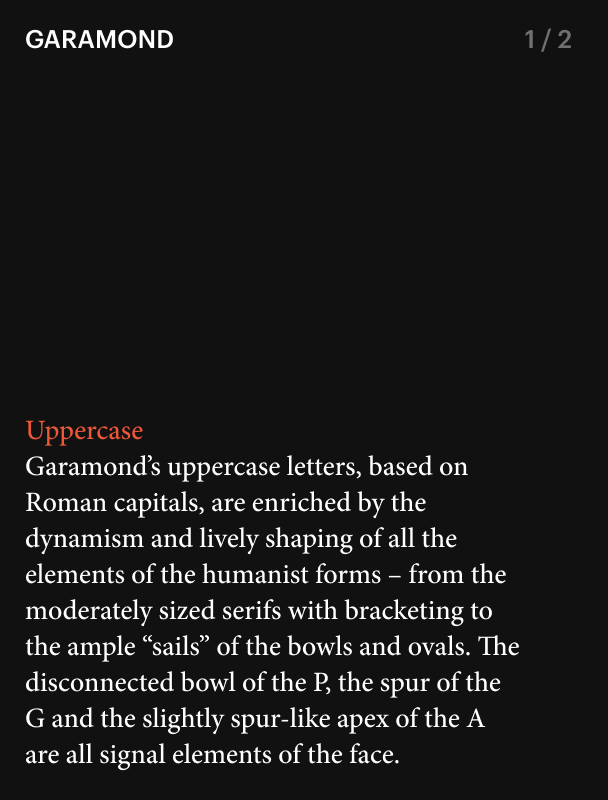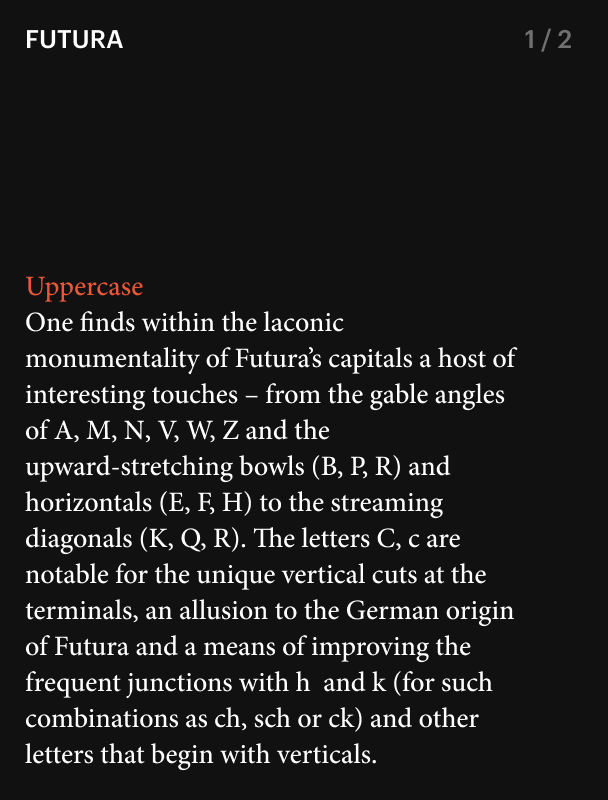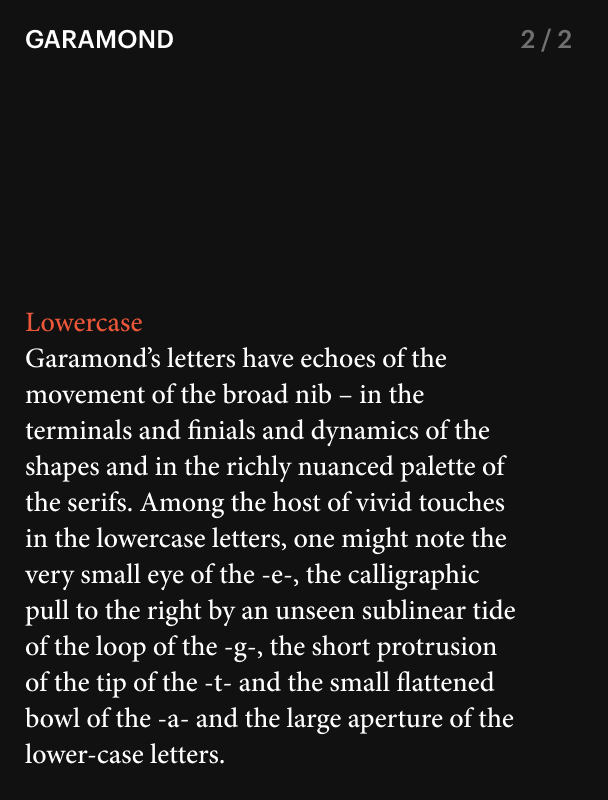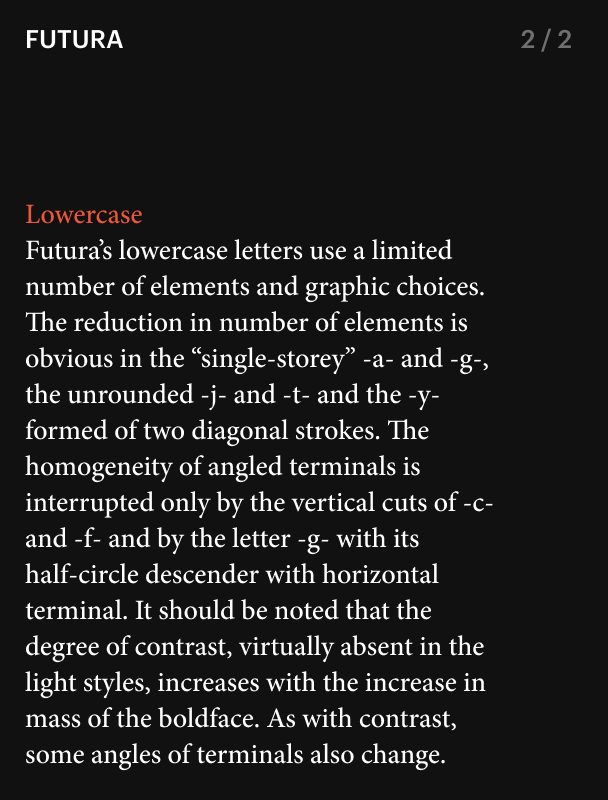
What are font pairs?
Font Pairing
There are many ways to put it. We talk of marrying typefaces, of finding mixtures that work, combinations that hit it off, pairings that make sense. Whatever the words, the heart of the matter is the same: we want an appropriately expressive presentation of text that works in practical terms. The look and feel of what we want to communicate depend on getting the combination right.
Overall, anyone who lays out texts faces two kinds of problems: practical-functional and aesthetic. Finding what works across the board takes time and effort, lots of it. And every designer has his or her own way of going about the “how” of it. Some rely on instinct, a “feel”, others on rules for combination drawn from experience, and still others on the winning examples of others. Yet every typographic situation is different, even unique, and success can only be measured by readers’ unconscious impressions.
The four pairings of typefaces offered here are matched in terms of: proportions (Futura and Garamond), in look or plastic quality (Farnham and Benton) and by a kind of contrapuntal interplay (Century Old Style and Sweet Sans; Chaparral and Proxima Nova). Just a word more: there are no hard and fast rules for combining typefaces. Our suggestions are meant to spark your own thinking.
Futura + Garamond
Futura Medium 150 / 140 pt + Adobe Garamond Regular 24 / 28 pt
Font pairing: Futura + Garamond
The marriage of Futura and Garamond is based on a unity of opposites. Despite differences in origin and character, they combine brilliantly, thanks to their proportions, to form a powerful typographic ensemble with a rich range of possibilities.
1. Proportions
Futura and Garamond have almost identical vertical metrics — the relationship of lowercase and uppercase letters (x-height) and the length of extenders. The moderate height of the lowercase letters along with the height of the ascenders give, in addition to a feeling of “slimness,” a sense of space between lines even where there is little leading.
The capitals of both typefaces use the classical proportions of Roman capital letters, each letter of which derives from a simple geometric form: triangle, circle, square (or one of their segments). The drawing of this kind of face is rhythmically complex. The “voice” is never monotonous.
Garamond's lowercase letters are noticeably different in width, a feature deriving in part from the not quite extinguished link to the proportions of humanist minuscule, the basis for the first serif typefaces of the 15th–16th centuries, which were much influenced by Renaissance ideas of “beautiful form”. Odd as it may seem, the proportions of the lowercase letters of Futura, a face of quite a different time and character, are very close to those of Garamond. But, for Futura, a typeface meant to last long after the era of its creation, use of the time-tested classical proportions was entirely natural and wise.
2. Details
Like many other handwriting-based Renaissance serifs transformed by the chisel into type, the letters of Garamond have a direct, expressive link to their origin in script.
On the other hand, Futura is one of the first typefaces whose letters are based on the idea of “pure” geometry. But Futura's geometry is a matter more of the eye than
of mathematics — a geometry created with compass and ruler but adjusted countless times before reaching final typographic acceptability.
Futura PT
Adobe Garamond Pro
Paul Renner/Vladimir Efimov (Cyrillic)
ParaType
1995
Claude Garamond/Robert Slimbach
Adobe
1998
Futura was designed by the painter, book designer and teacher Paul Renner and produced by the Bauer type foundry, which sought a typeface that would both suit the spirit of the time and the demands of avant-garde aesthetics — that would celebrate the aesthetic of the machine and the beauty of simple forms.
Futura was the first popular, widely used geometric sans serif and was followed by a wave of imitations. Even the famous contemporary, Gill Sans, a typeface of quite different character and drawing, added supplementary characters very close in structure to the letters of Futura.
Font pairing: Farnham + Benton Sans
Farnham and Benton Sans are quite similar in the energy and dynamics of their letterforms, proving that faces of various epochs and styles can work well together despite the absence of specific shared elements. Farnham, a contemporary version of a transitional serif, teams up well with the early-20th-century American sans serif through a likeness of temperament and proportions.